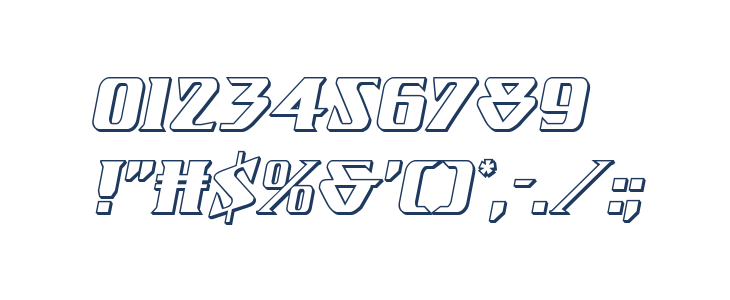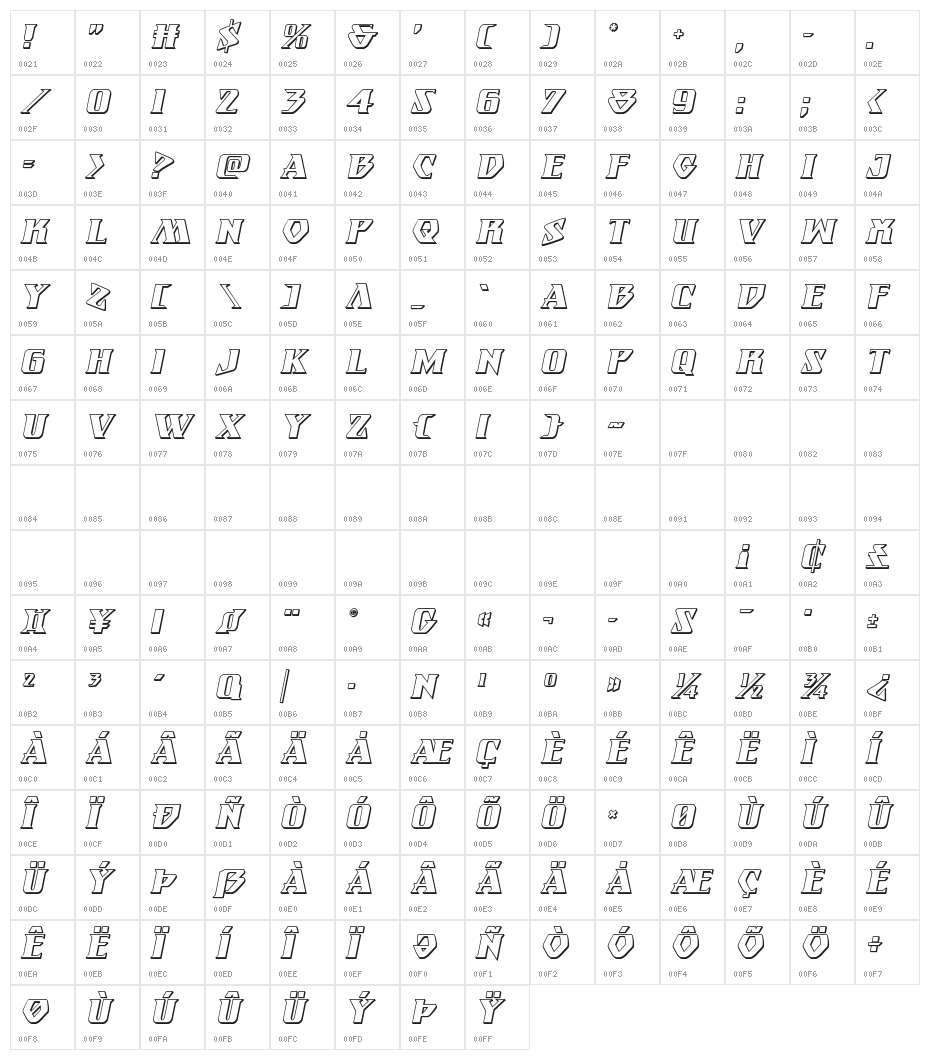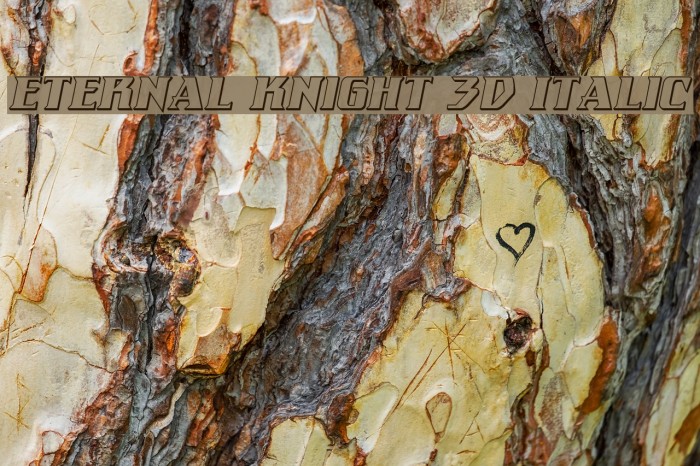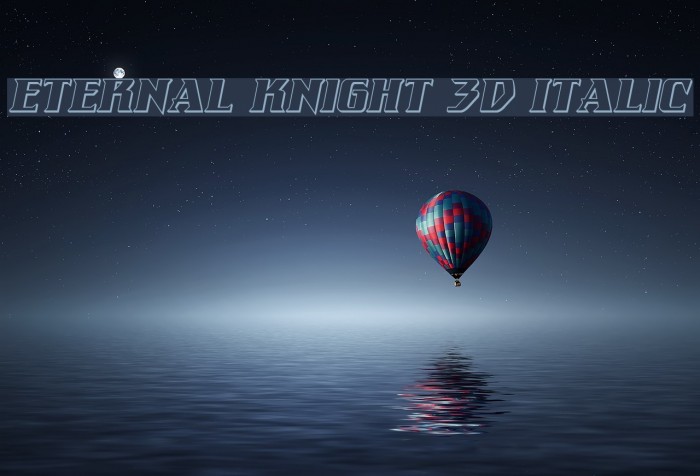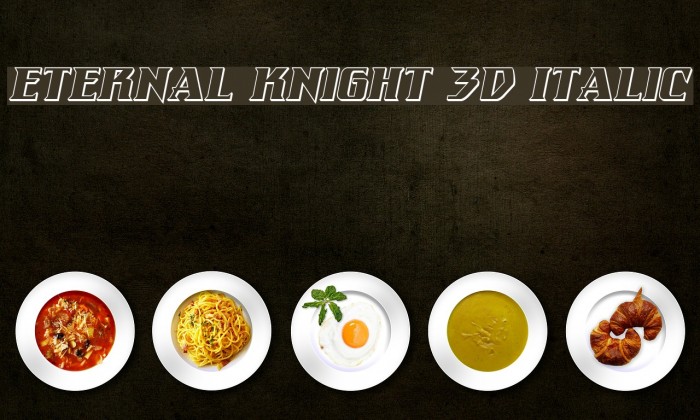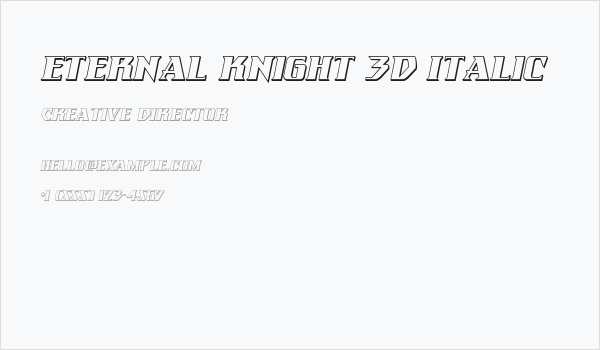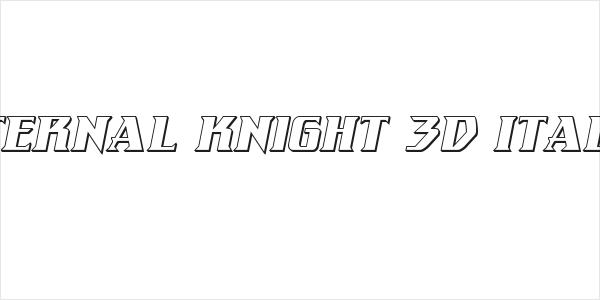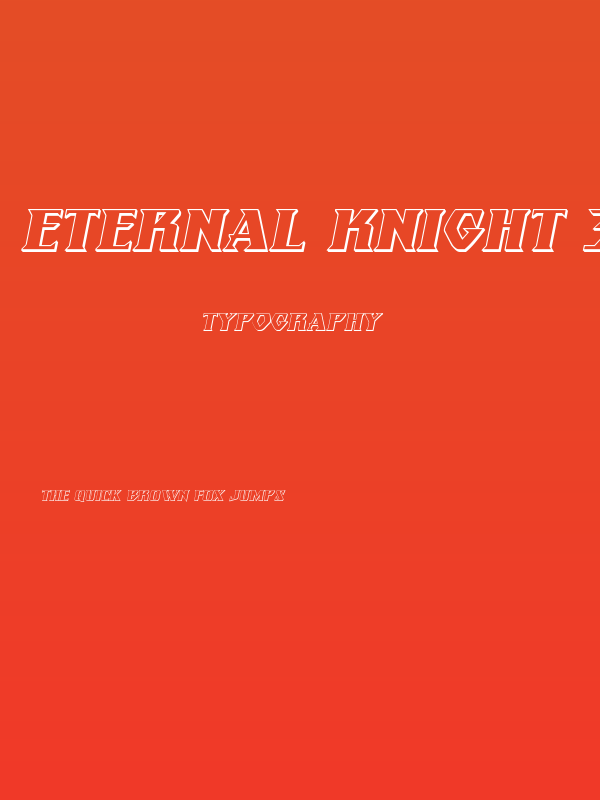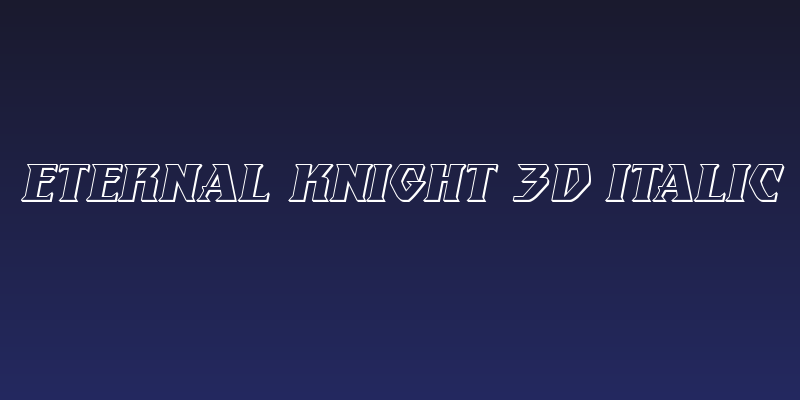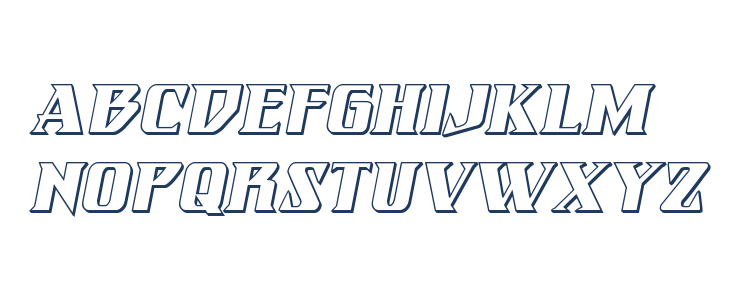
Eternal Knight 3D Italic Font
Eternal Knight 3D Italic Description
This font features a bold, 3D italic style with a strong geometric influence. The characters have a distinct three-dimensional effect, achieved through the use of shadowing and angular lines, giving them a futuristic and dynamic appearance. The uppercase and lowercase letters maintain a consistent style, with sharp edges and a sense of movement. The numbers and special characters are designed to match the bold and angular aesthetic, making the font suitable for eye-catching designs. The overall look is modern and impactful, perfect for projects that require a strong visual presence.
Proposed ProjectsIdeal for video game titles, movie posters, branding for tech companies, and any design requiring a bold, modern look.